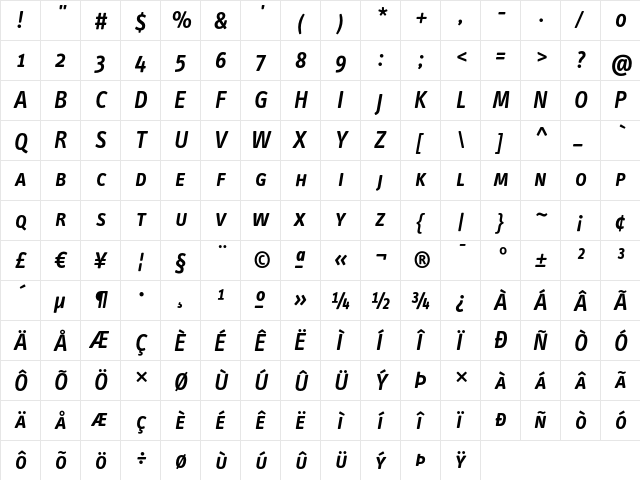
InfoTextSemibold CapsIta
Design Context for InfoTextSemibold Typeface
InfoTextSemibold is a composed and adaptable typeface that performs quietly and consistently across a wide range of design contexts. Its bold stroke weight gives it real presence on the page.